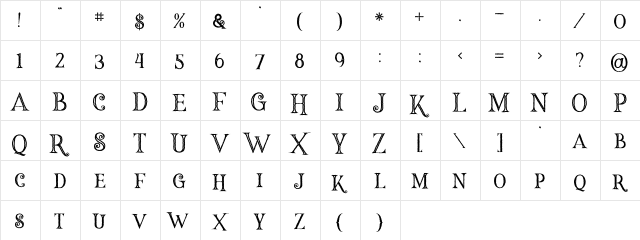
Hallowen Inline Inline
Design Context for Hallowen Inline Typeface
Hallowen Inline is built around its visual character rather than neutral utility — its distinctive forms are designed to make an impression at display sizes.
Font Pairing: Pair with a clean neutral sans-serif for body copy to let Hallowen Inline's character lead without overwhelming the composition.
Pro Tip: Use Hallowen Inline exclusively at display sizes — it was designed to be seen, not read at length. Let a neutral companion handle body copy.